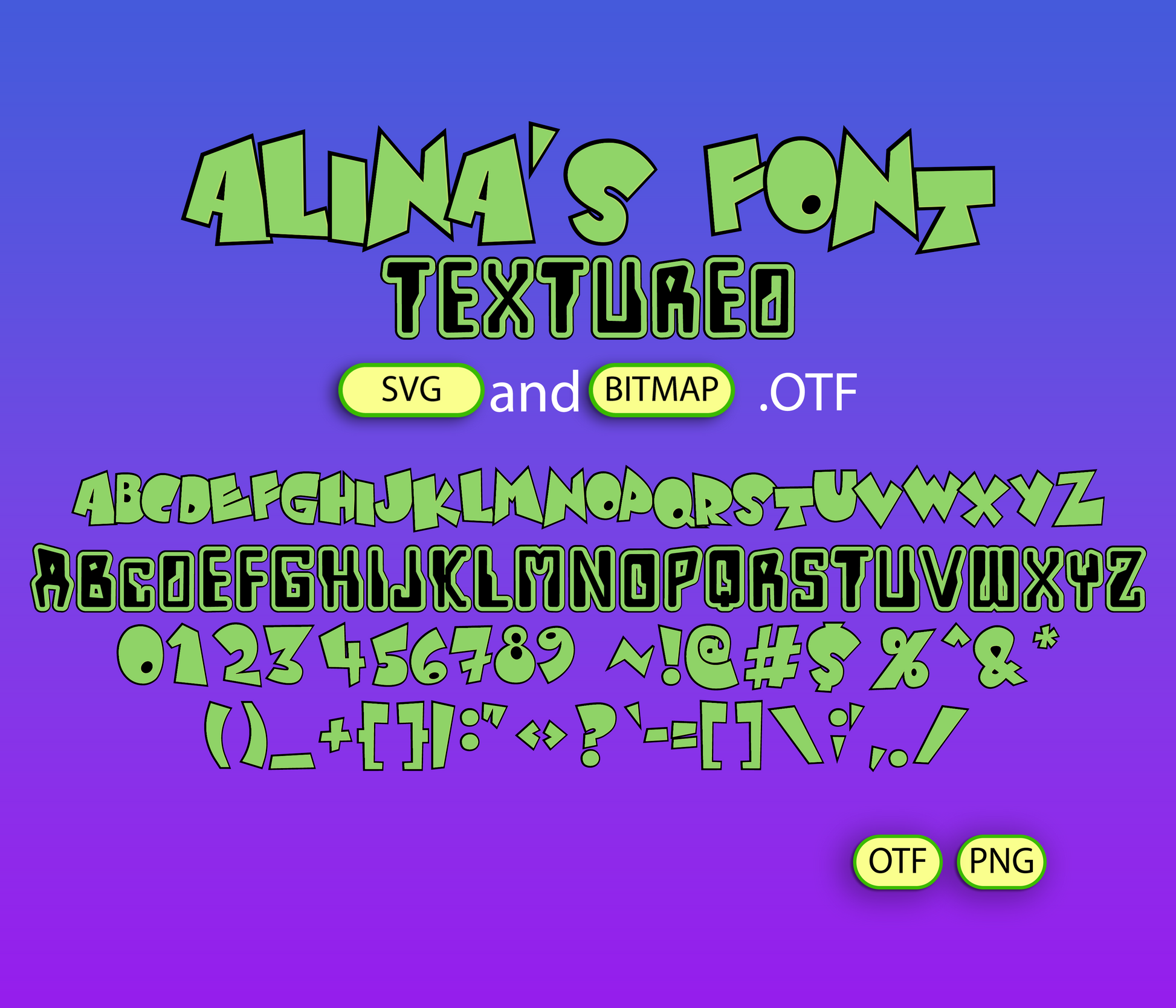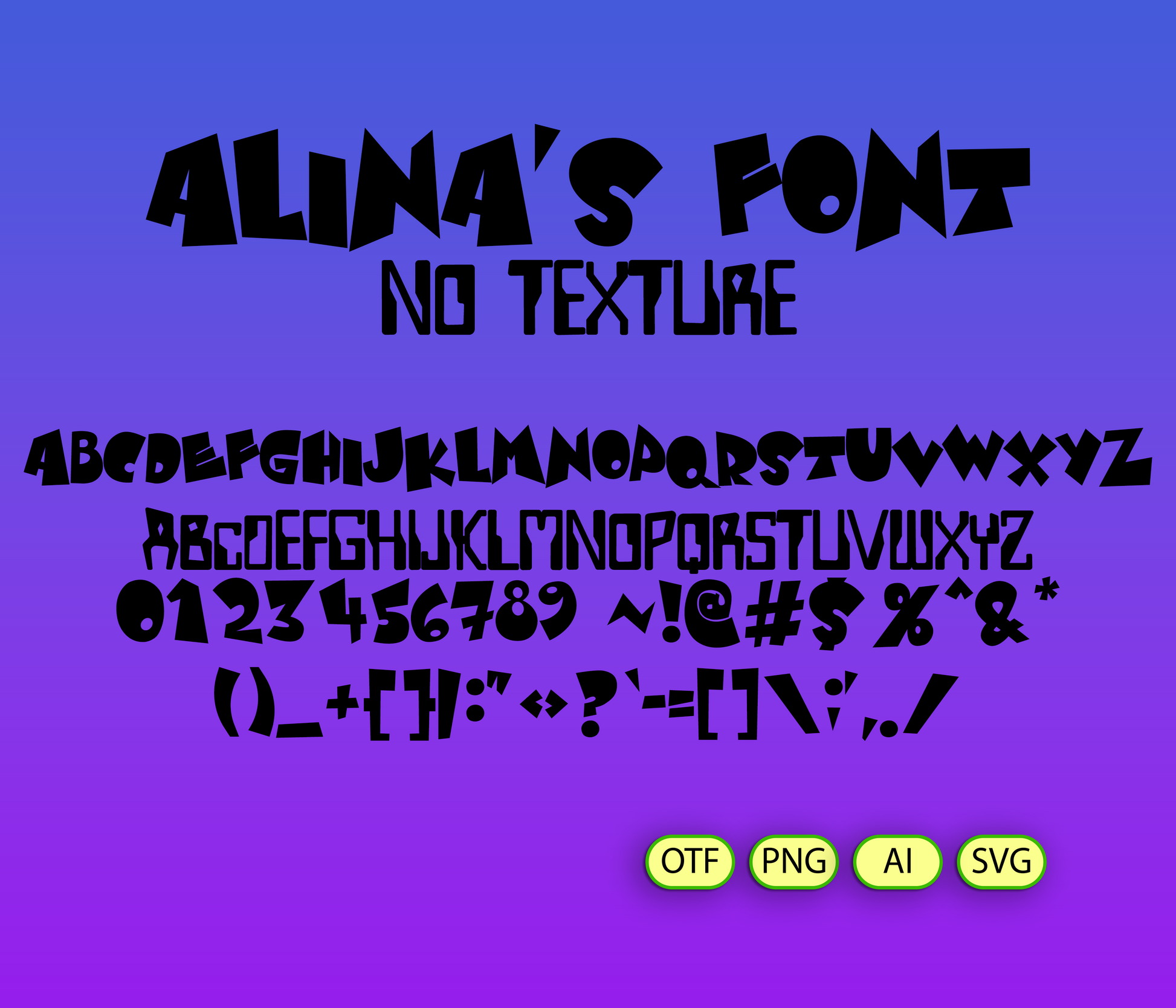
Genius Lab Font Textured
Genius Lab Font Textured Dexter's Laboratory Font
Dive into the quirky and ingenious world of a boy genius with our meticulously crafted Genius Lab Textured Font. This font is not just a typeface but a portal into the adventurous universe of a red-haired genius, his free-spirited sister, and their life in the fictional Genius Grove. This American animated series is a tapestry of humor, scientific marvels, and family dynamics. It paints a vivid picture of a young genius's efforts to balance his secret inventions with everyday life challenges.
What Font is Genius Lab Font?
Our Genius Lab Textured Font is a homage to this vibrant and dynamic series. It is meticulously crafted to echo the unique visual style of the cartoon, especially reflecting the evolution under the guidance of the creative team in later seasons. The font encapsulates the angular, precise designs of the lab equipment, intertwined with the playful and imaginative animation style that defined the series. Beyond the standard alphabet, it includes an extensive character set with numbers and special characters, ensuring a faithful replication of the show's iconic typography. This comprehensive design approach results in a font that is not only a tool for text but a piece of art that tells a story.
Feature Highlights and Bonuses
The Genius Lab Textured Font package boasts a variety of features to cater to a broad spectrum of creative needs. It includes textured, colored, and non-textured variants, providing flexibility for different design projects. The package also comes with a standard version of the font, compatible with cutting machines like Cricut, adding immense value for DIY enthusiasts and crafters. The user-friendly interface ensures ease of use, allowing even beginners to tap into their creativity and explore the font's potential.